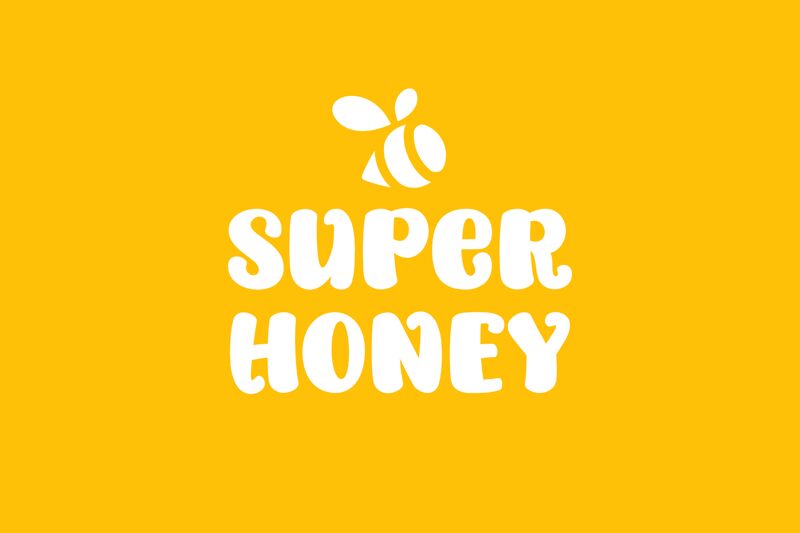
Super Honey
Super Honey font, crafted by fsuarez913, brings a delightful touch of whimsy with its cartoon-inspired design. This bold display typeface captivates with exaggerated curves and playful letterforms that exude charm and personality. The rounded edges evoke a sense of friendliness, making it perfect for engaging audiences in both lighthearted and creative contexts.
Its robust presence ensures that it stands out in any application, from vibrant posters to eye-catching branding. Super Honey is ideal for children's products, fun event promotions, or any project that seeks to convey joy and energy. With its unique aesthetic appeal, this font invites a closer look while adding an inviting warmth to any design endeavor.